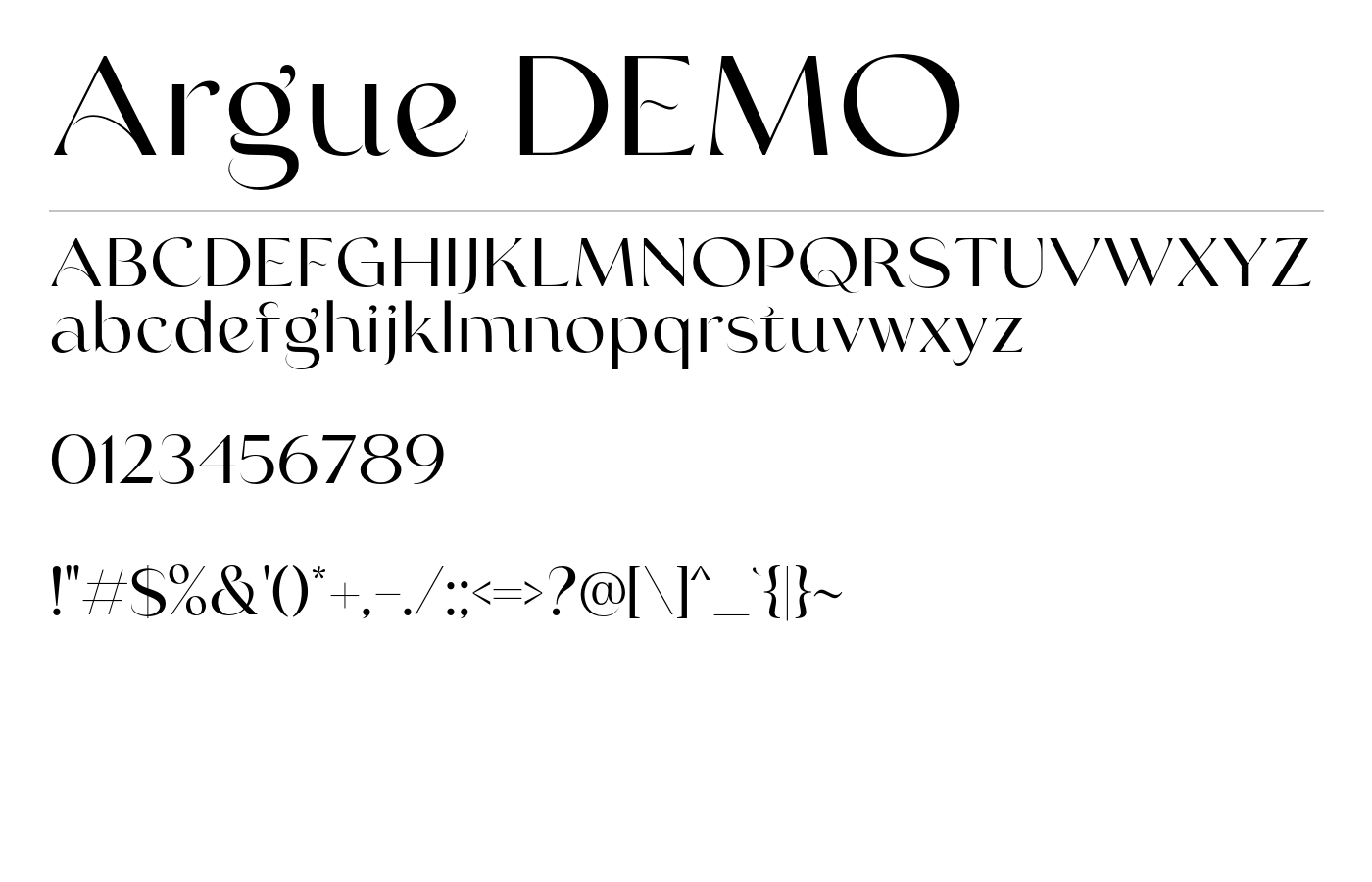
Argue DEMO is a stylish serif font with a modern twist, featuring high contrast strokes and elegant, delicate serifs that blend sharp and curved elements beautifully. Its tall, refined letterforms and unique details—like the wavy strokes and distinct shapes in characters such as the uppercase "E" and lowercase "g"—give it a sophisticated, artistic feel, ideal for fashion, luxury branding, editorial headlines, and upscale packaging. This font balances elegance with creativity, making it perfect for designs that need a luxurious yet contemporary look.
Argue DEMO Font
About Argue DEMO Font
| Font family | Argue DEMO Font |
| Designer | Sarid Ezra |